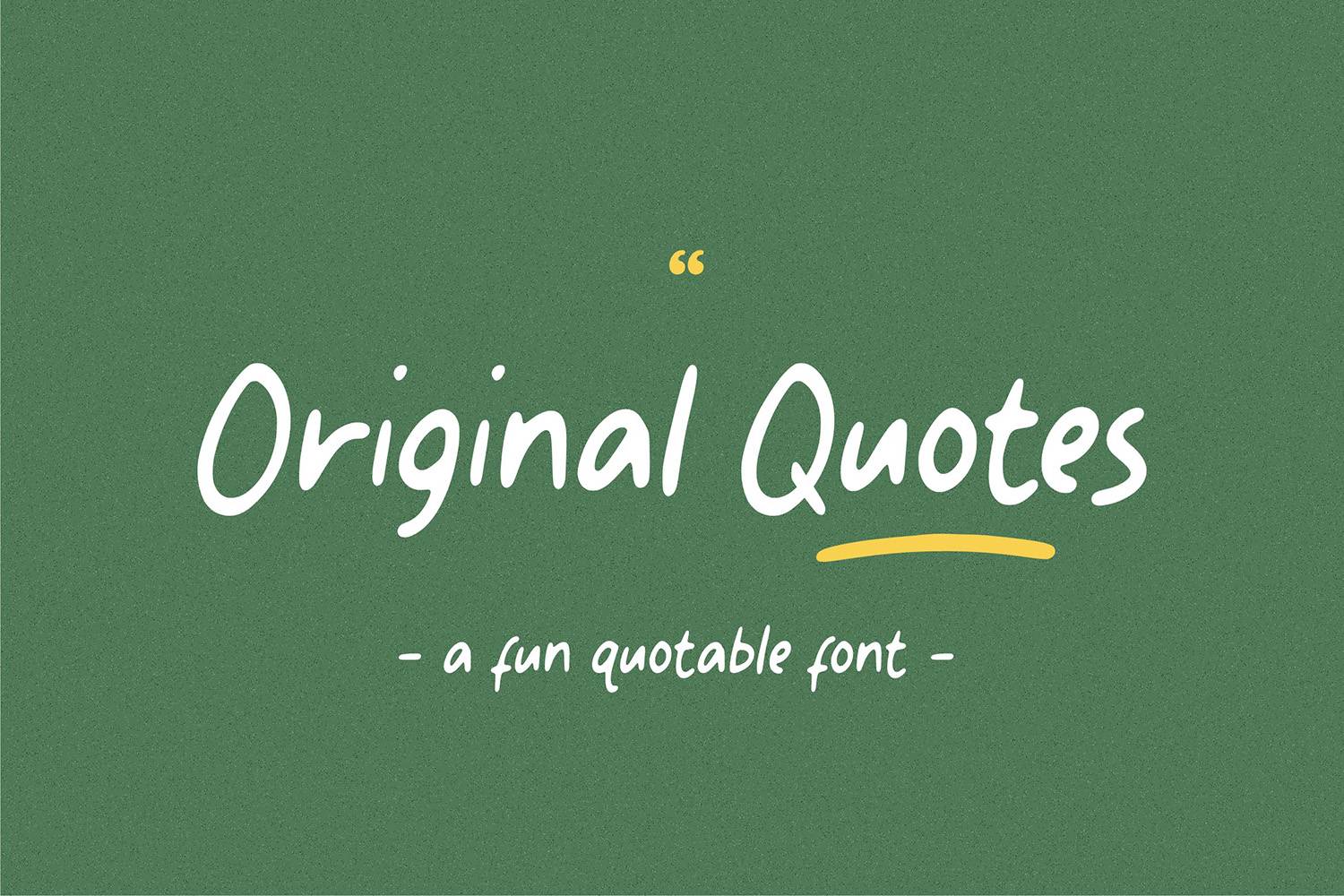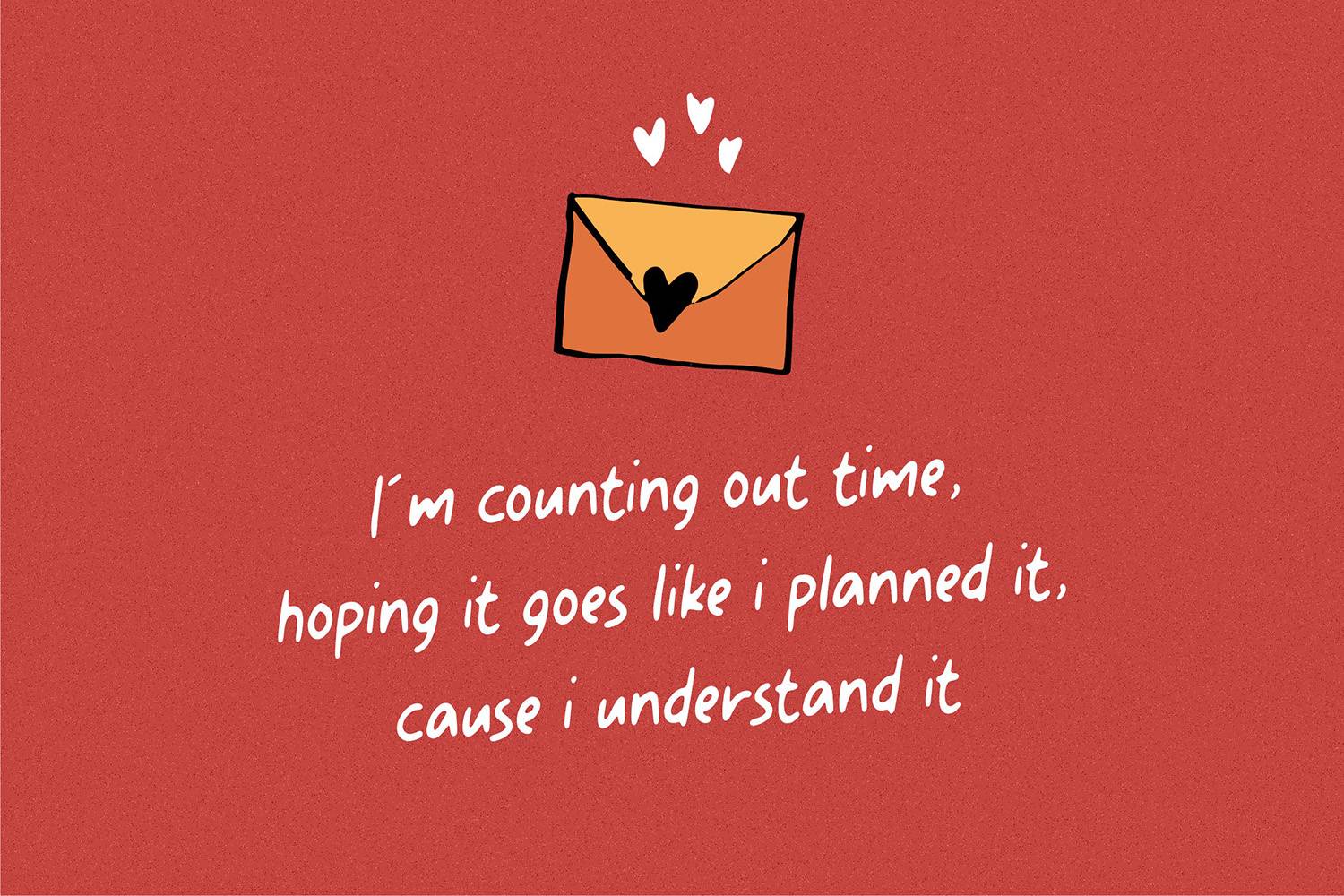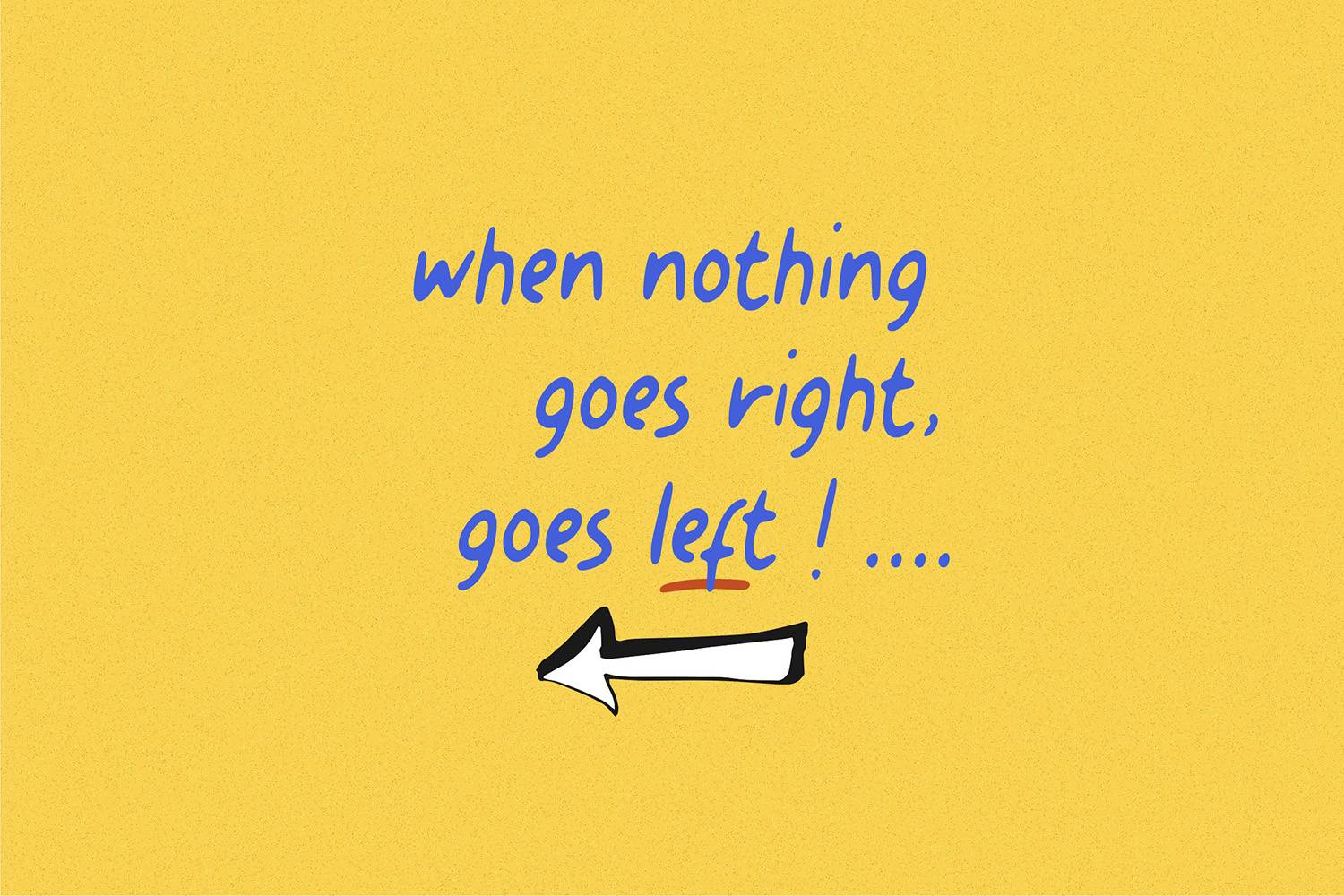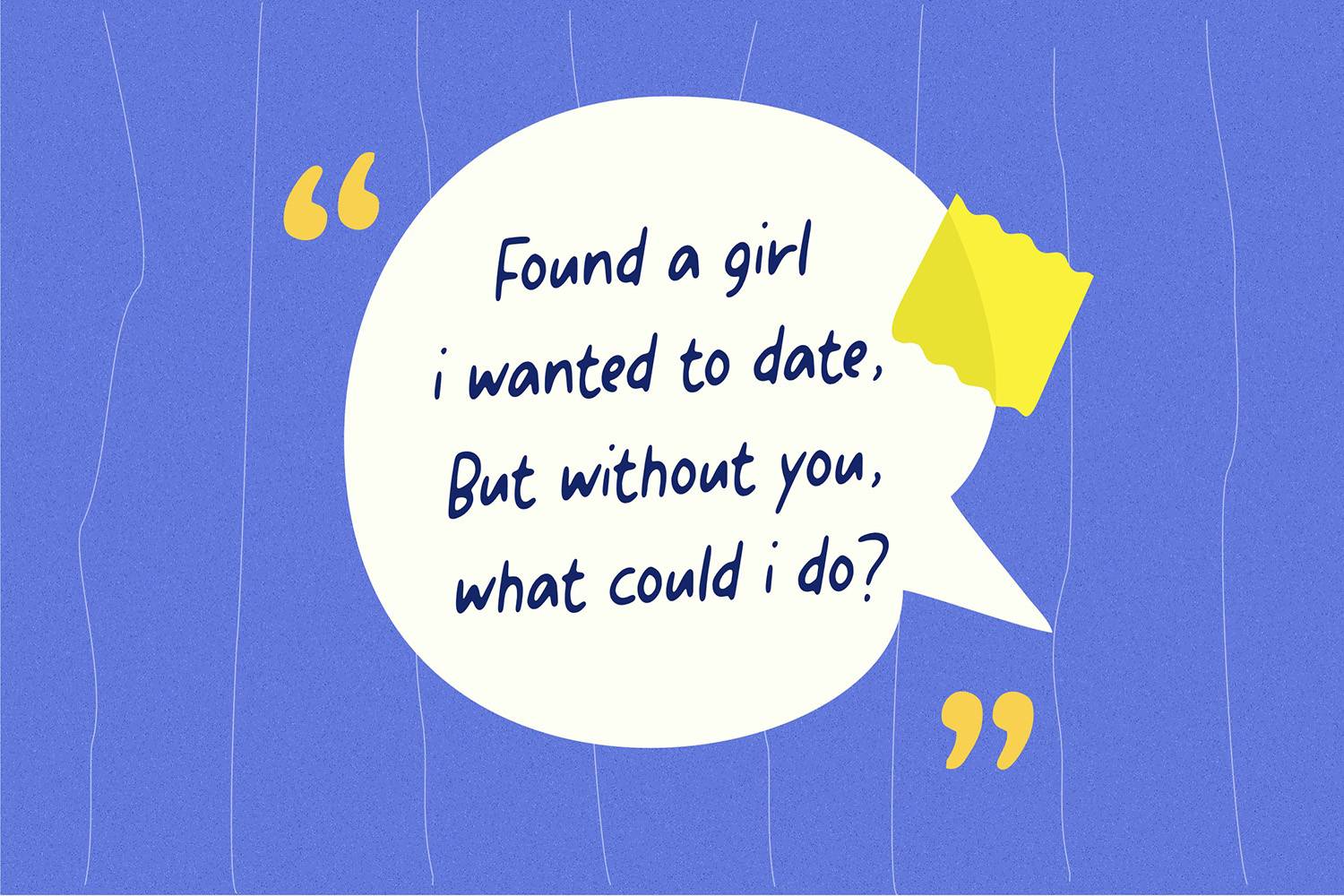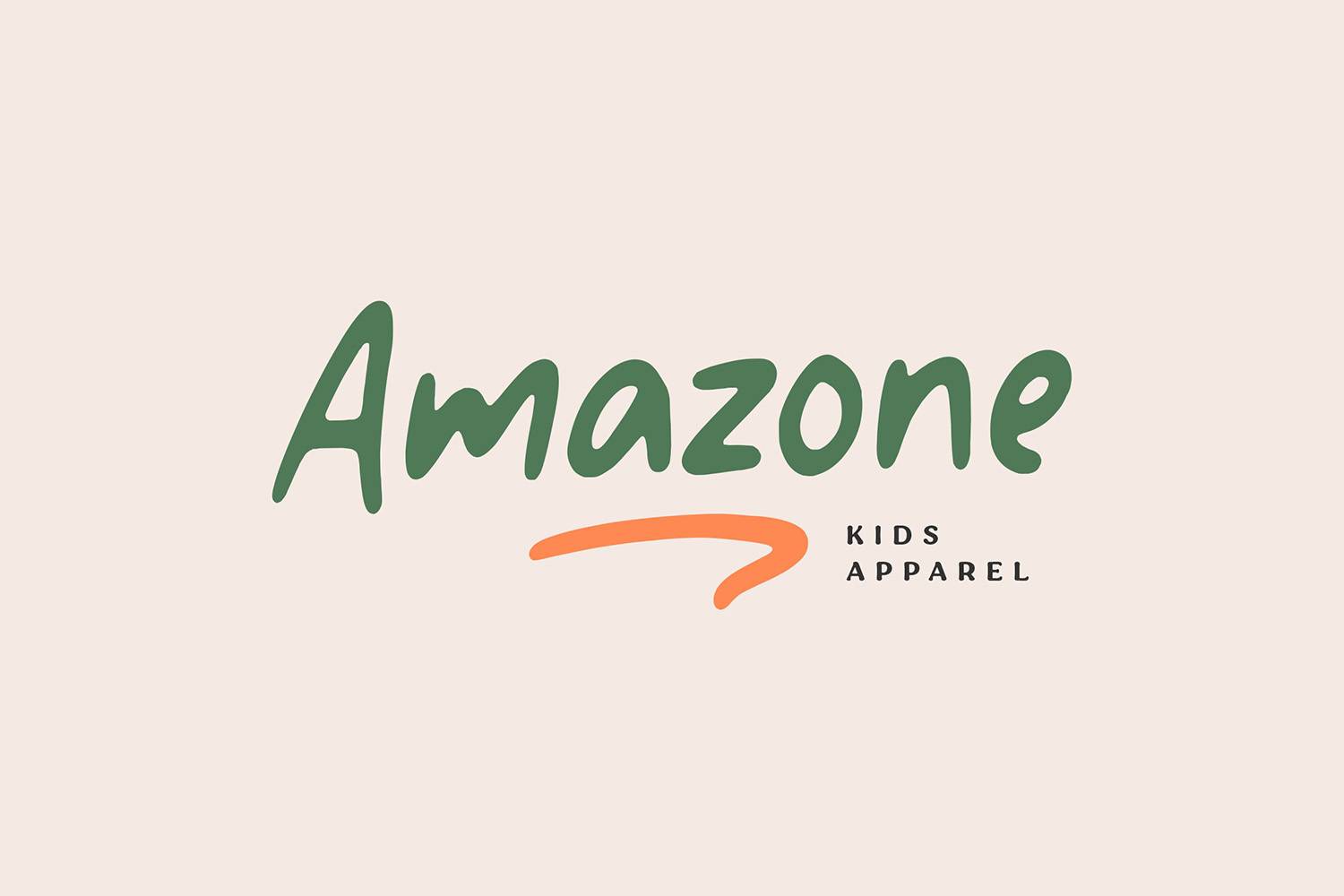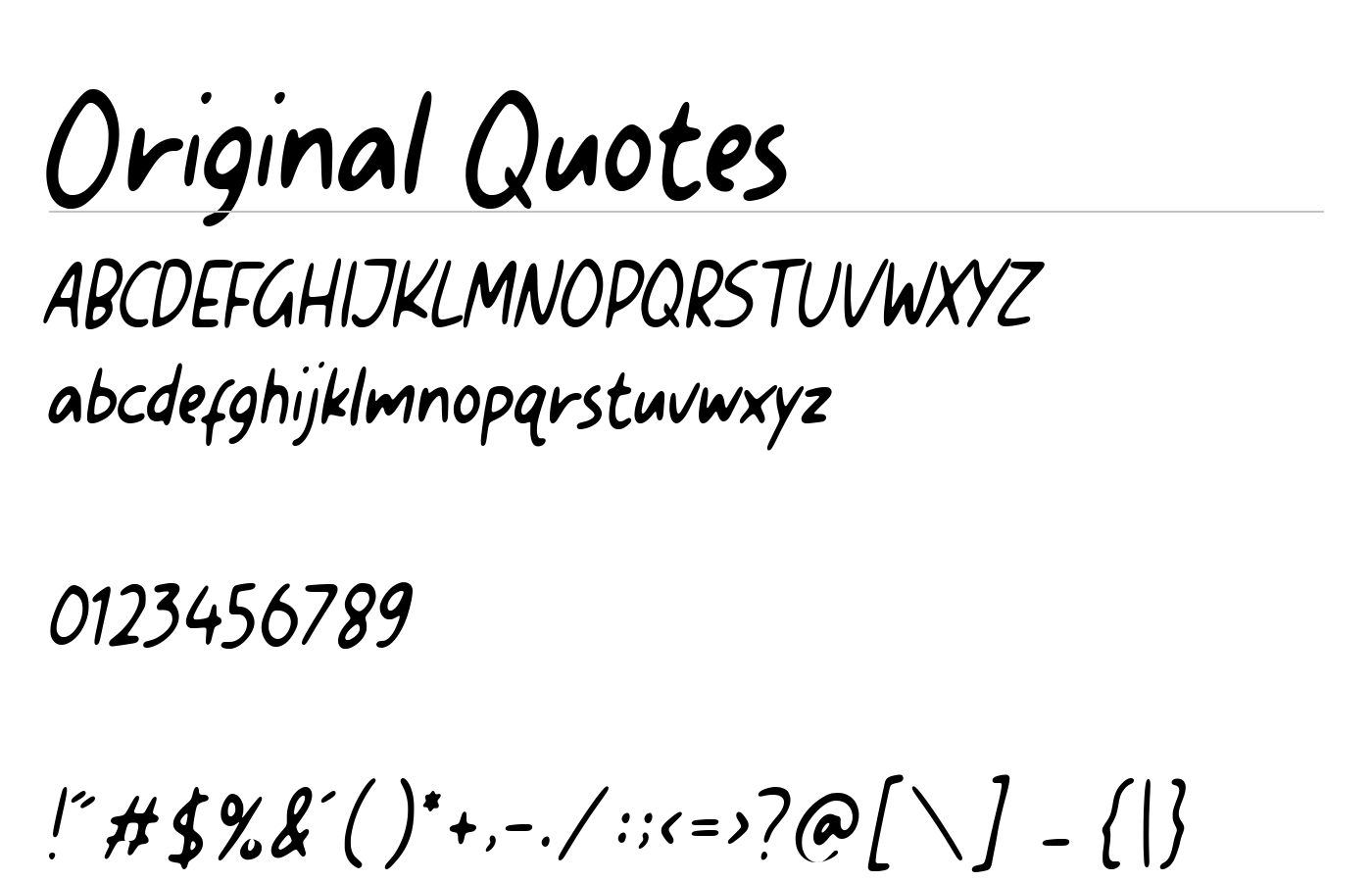
Original Quotes is a playful and casual handwritten sans serif font with a friendly, organic feel. Its moderately tall x-height and lively letterforms make it ideal for creative projects that seek a personal, informal touch, such as quotes, social media graphics, and youth-oriented branding. This font works well in headlines and short text where a warm, approachable character is desired.
Original Quotes Font
About Original Quotes Font